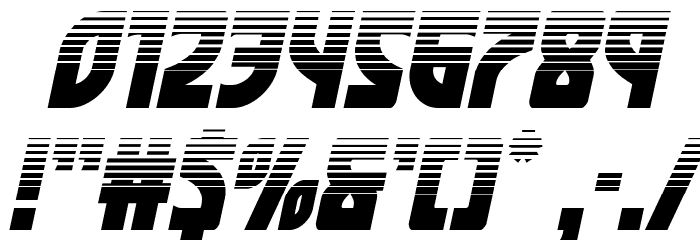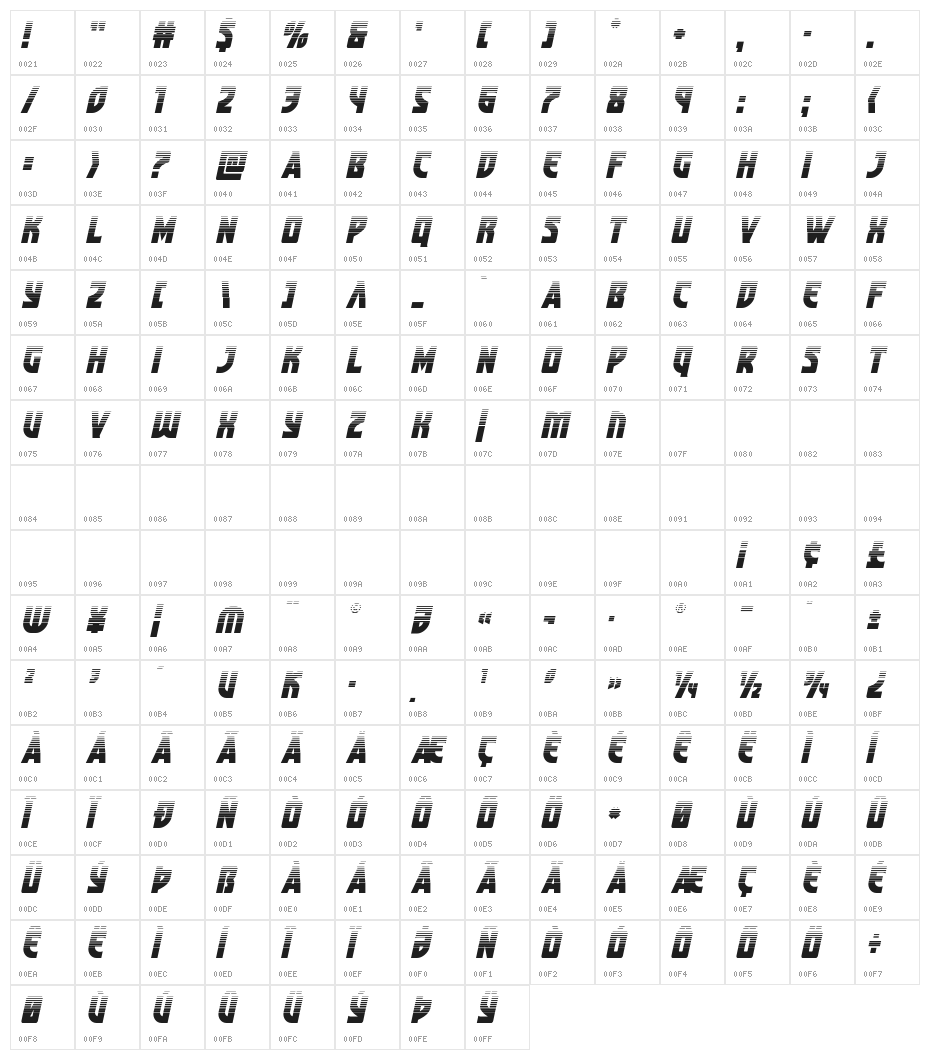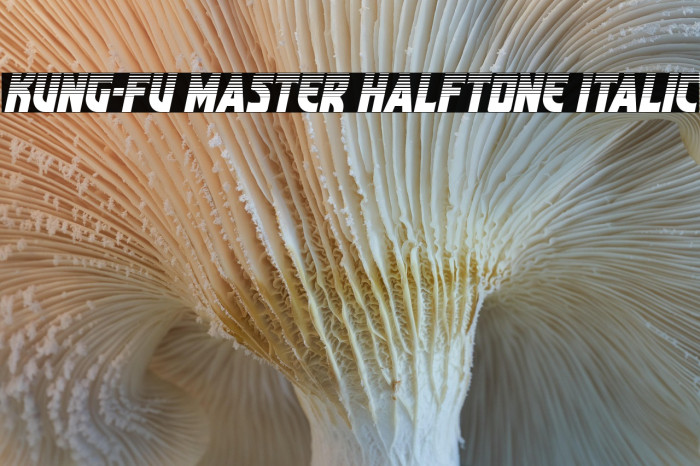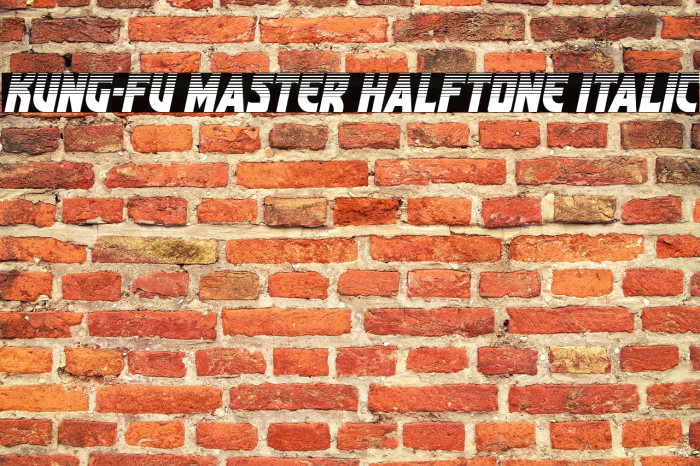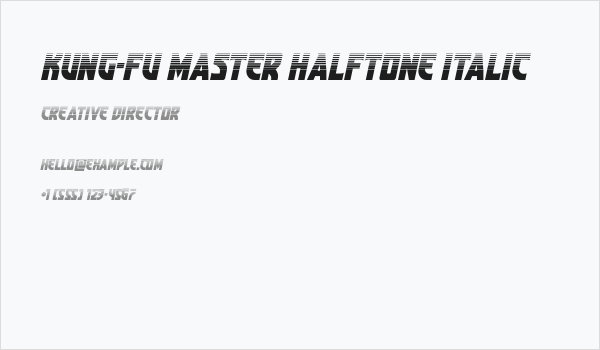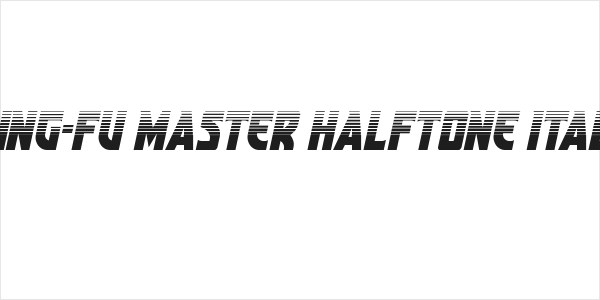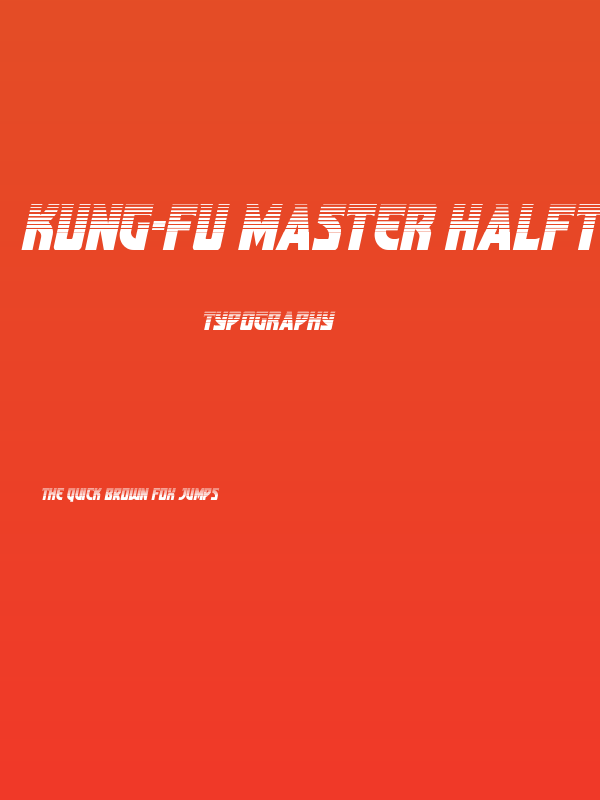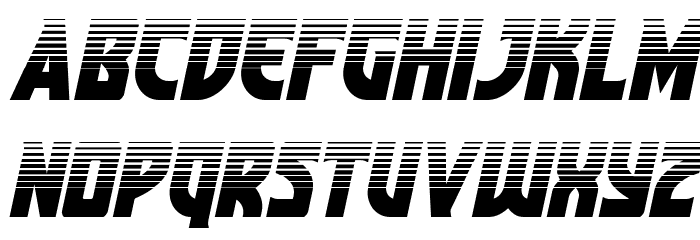
Kung-Fu Master Halftone Italic Font
Kung-Fu Master Halftone Italic Description
This dynamic and bold font features a striking halftone effect that gives it a sense of movement and energy. The italicized letters are designed with a futuristic and sporty aesthetic, characterized by sharp angles and a slanted orientation. The uppercase and lowercase letters maintain a consistent style, with horizontal lines that create a sense of speed and motion. The numbers and special characters are equally bold, making them stand out with the same halftone pattern. This font is ideal for projects that require a modern and energetic look, such as sports branding, action-themed posters, or dynamic logos.
| Proposed Projects | Ideal for sports branding, action-themed posters, dynamic logos, and futuristic designs. |